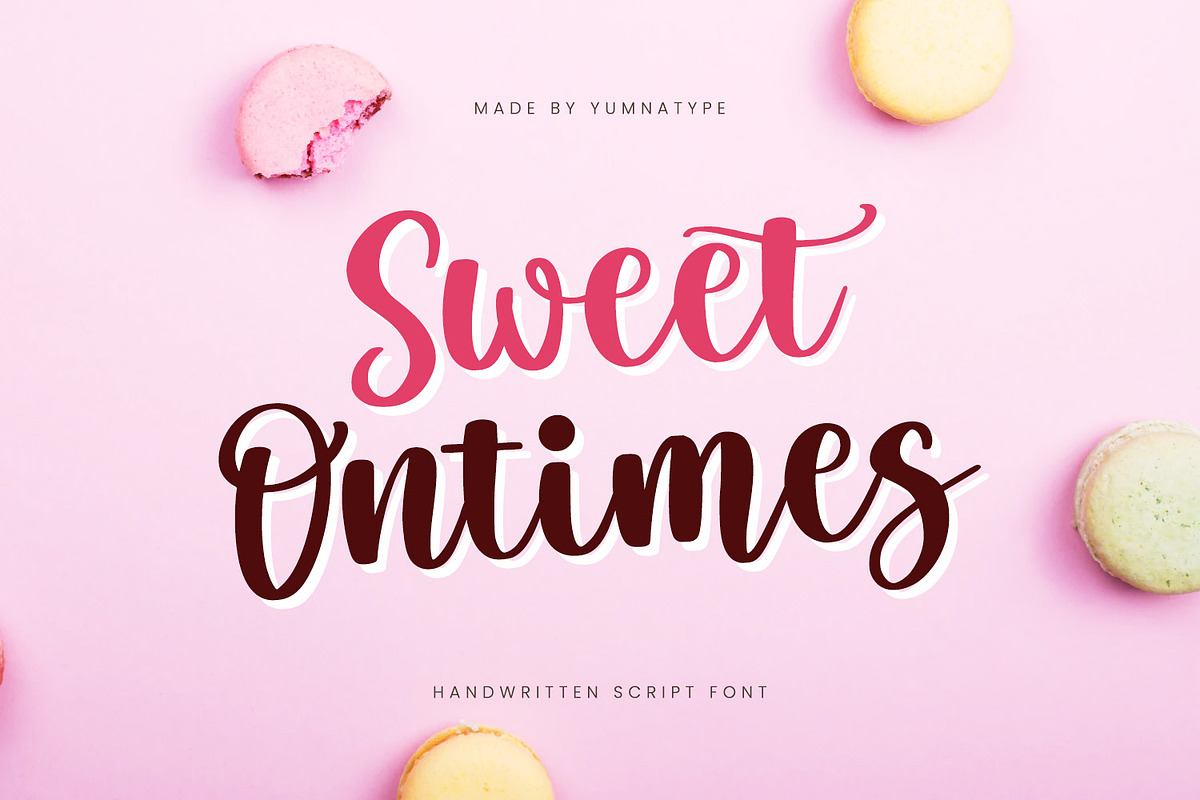
Sweet Ontimes Font Free Download is a charming and elegant script typeface that brings a soft, romantic touch to your design projects. With its flowing strokes, delicate curves, and handwritten feel, Sweet Ontimes is perfect for wedding invitations, branding, greeting cards, social media posts, and packaging that calls for a graceful, feminine style.
Designed to mimic natural handwriting with a hint of sophistication, Sweet Ontimes Font Free Download is ideal for projects that need warmth, personality, and a refined script aesthetic. Its smooth letter connections and stylish swashes make it stand out in both print and digital layouts.
Whether you're designing a boutique logo, a love letter, or a personal blog header, Sweet Ontimes pairs beautifully with clean sans-serifs or minimal serif fonts for an elegant contrast.